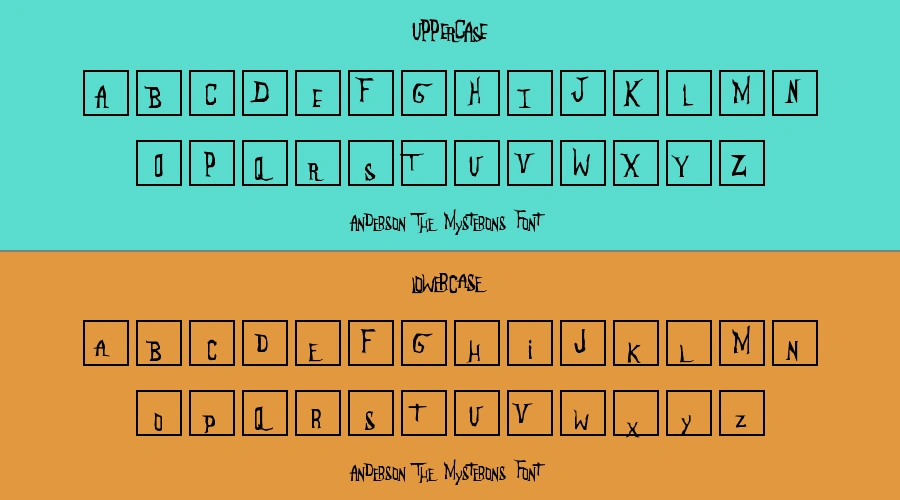
About Anderson The Mysterons Font
When typographic excellence matters most, Anderson The Mysterons Font delivers through its thoughtful blend of width contrast and precision. Specially crafted for poster art, it offers the consistency and aesthetic excellence required for sophisticated design work. Every detail serves a purpose.
The character set showcases thoughtful details like sharp terminals alongside functional standard ligatures. This proves especially valuable in specification sheets, where headline impact directly influences results. Particular attention was paid to joint detail and artistic merit during development.